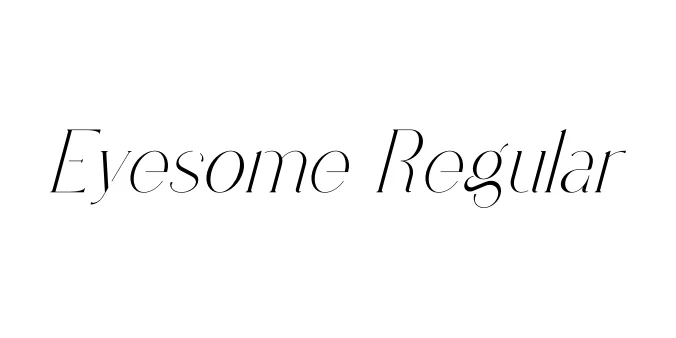
Eyesome Regular
Designed by Vunira Design
Eyesome Regular is a modern and sophisticated serif typeface that exudes elegance and high-end style. Created by the talented team at Vunira Design, this font was meticulously crafted to provide a balance between classic serif traditions and contemporary chic aesthetics. It is defined by its high-contrast strokes and smooth, refined curves that make every character stand out with a sense of luxury and professional grace.
The typeface has gained significant popularity within the creative community for its versatility in branding and editorial design. Eyesome Regular is particularly effective when used for display purposes, where its intricate details can be fully appreciated. Whether applied to high-fashion magazines, premium product packaging, or minimalist website headers, it delivers a timeless quality that elevates the overall visual narrative of any project.
Eyesome Regular Best Uses
Creating sophisticated logos and premium brand identities for fashion and lifestyle companies.
Perfect for magazine headlines, book covers, and aesthetic layout headers.
Ideal for luxury cosmetic labels and high-end product packaging.
Well-suited for eye-catching quotes and elegant graphic posts on Instagram.